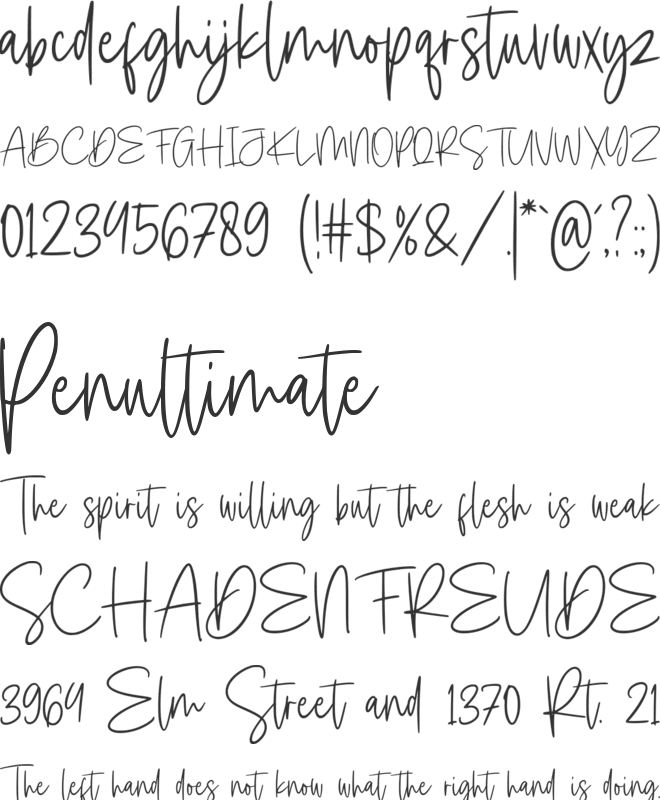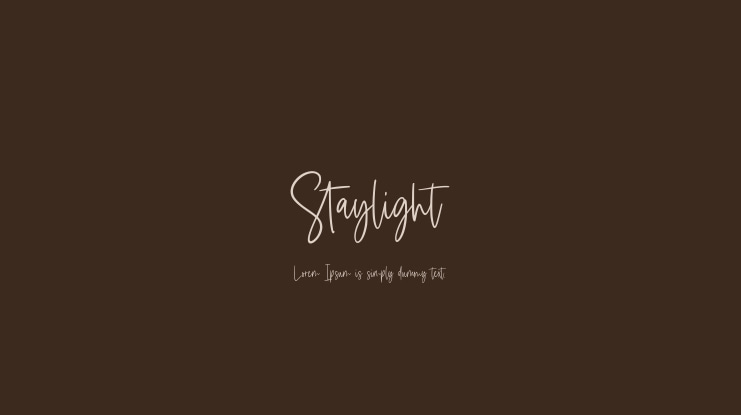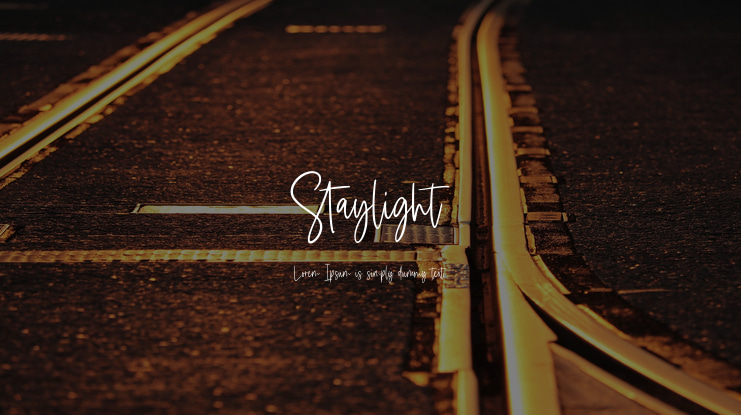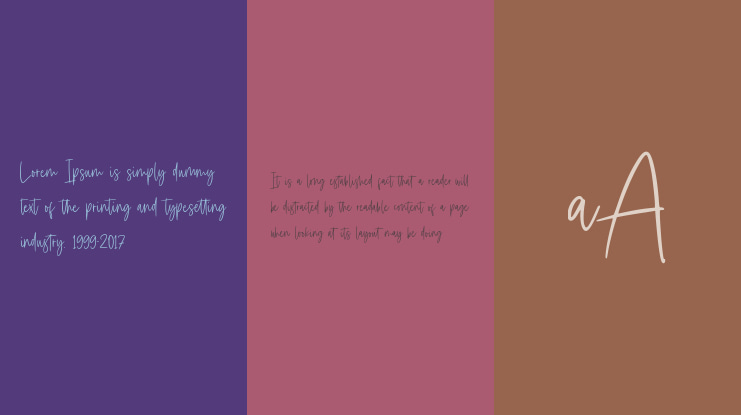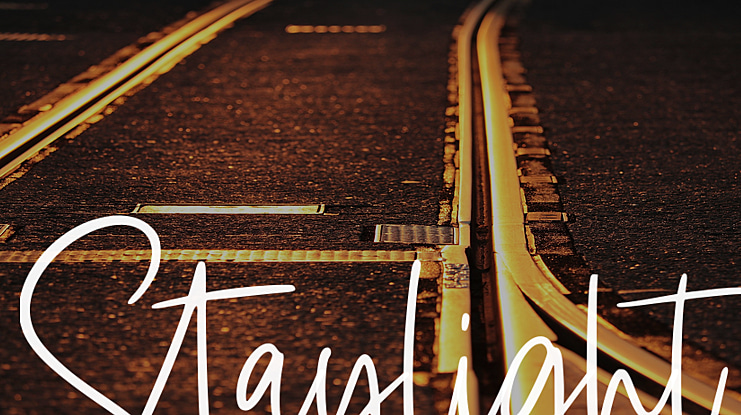
Staylight Font Family
Staylight is consisting of a fashionable signature-style script that makes it look elegant, classy, and touch of luxury and stylish.
This font was created to look as close to a natural handwritten script as possible.
Staylight is perfect for branding projects, logos, wedding designs, social media posts, advertisements, product packaging, product designs, label, photography, watermark, invitation, stationery and anything that you want.